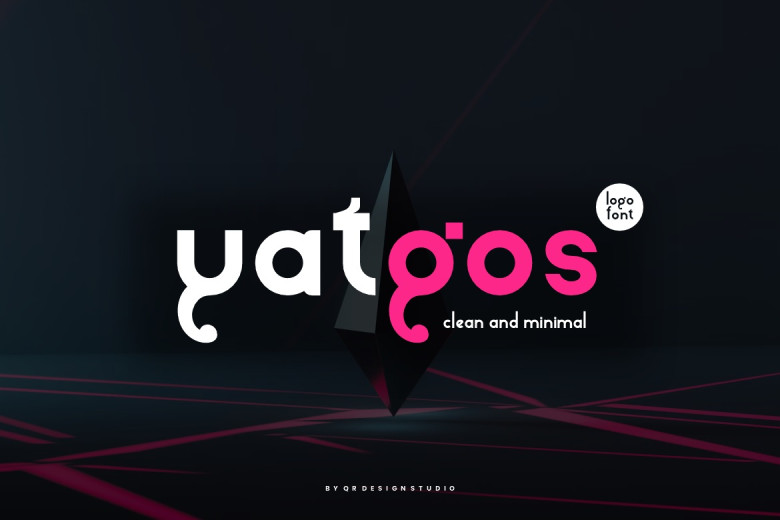
Yatgos Font
Yatgos is a beautiful sans typeface that is somewhat forceful or assertively distinct. Easily seduced by its extremely elastic aesthetics, Ideal is perfect for making beautiful cards with invitations to a wedding, wonderful stationery art, bright posts in social networks, and much more!
Yatgos Sans Serif Font